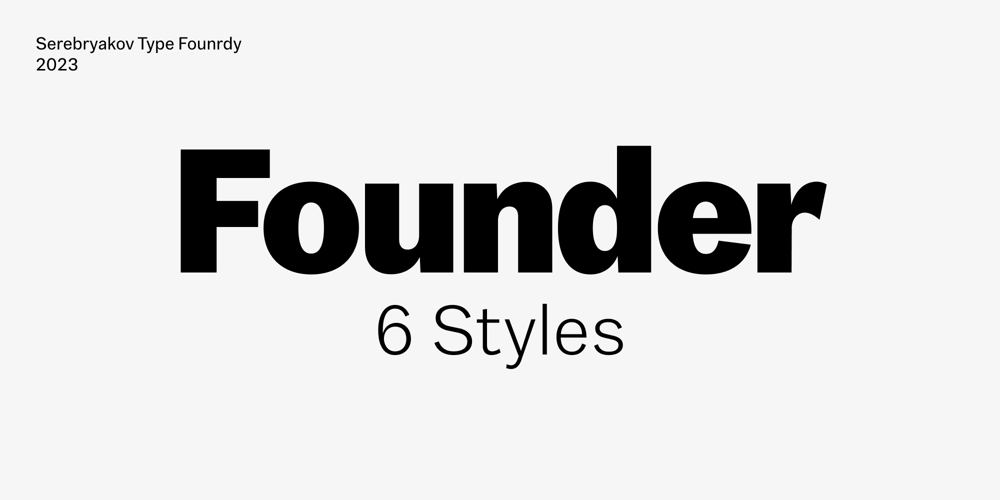
Founder Font Family was designed by Denis Serebryakov and published by Serebryakov. Founder contains 6 styles and family package options. Founder is a neutral sans-serif font family consisting of 6 weight categories. The font was created for use on his own website, but eventually the account went on public sale. The original purpose of the font was not intended to be a multi-tool. However, now everything necessary has been added to it so that it can be safely used in projects. Founder supports more than 50 Latin-based languages, as well as Belarusian, Russian and Ukrainian Cyrillic.Gothic sans aesthetics give Founder a natural and relaxed feel that business fonts lack today. The font is perfect for cases when you need to dilute the silence of modern digital environment or just to complement the author’s illustrations.